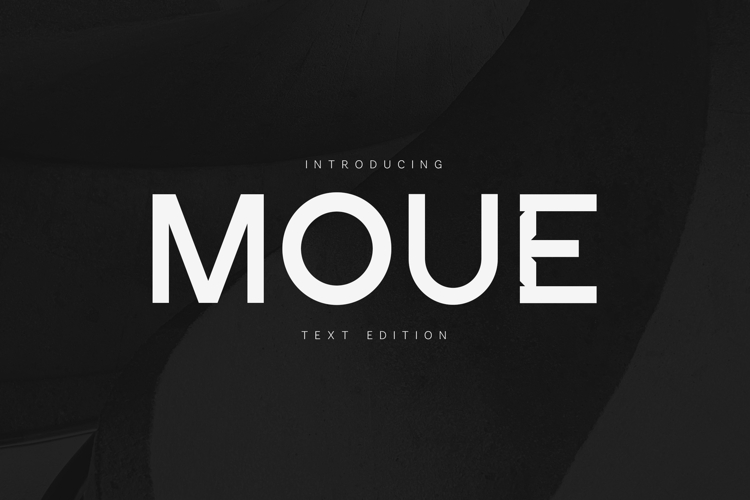
Moue Modern Geometric Sans Serif Font
Moue is a modern geometric sans serif font that combines clean construction, sharp architectural details, and contemporary elegance. Designed with precision and balance, Moue offers a sophisticated visual style that feels both professional and distinctive.
Its refined letterforms feature subtle angular cuts that create a memorable identity while maintaining excellent readability. The result is a versatile typeface suited for branding, logos, editorial layouts, packaging, websites, advertising, technology projects, luxury products, corporate identities, and modern visual communication.
Moue is designed to perform beautifully in large headlines, wordmarks, and display applications while remaining clear and effective across a wide range of design projects. The geometric foundation and carefully crafted proportions provide a timeless aesthetic that works equally well for innovative startups, premium brands, architecture studios, fashion labels, and creative agencies.
Whether you're creating a striking logo, building a contemporary brand identity, designing packaging, or developing digital experiences, Moue delivers a clean and confident typographic voice that helps projects stand out.
- Modern Geometric Sans Serif
- Uppercase & Lowercase Characters
- Numbers & Punctuation
- Clean Architectural Style
- Distinctive Angular Details